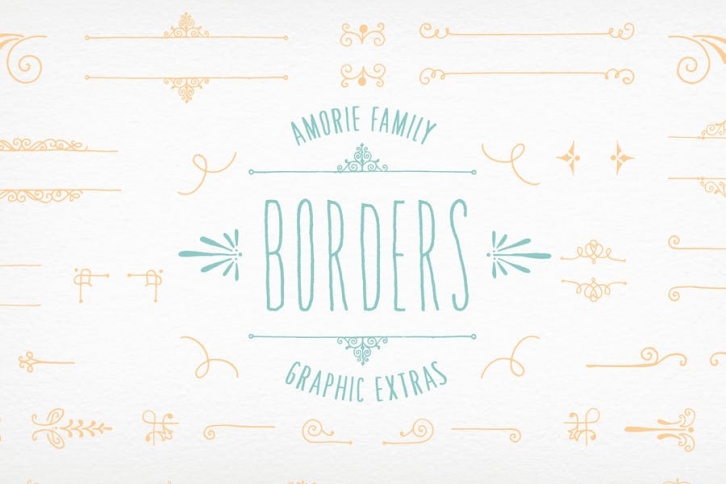
This is the set of graphic extras built to go with Amorie Modella, Nova, SC as well as the other ornament sets for Amorie. Included in this package are files for: